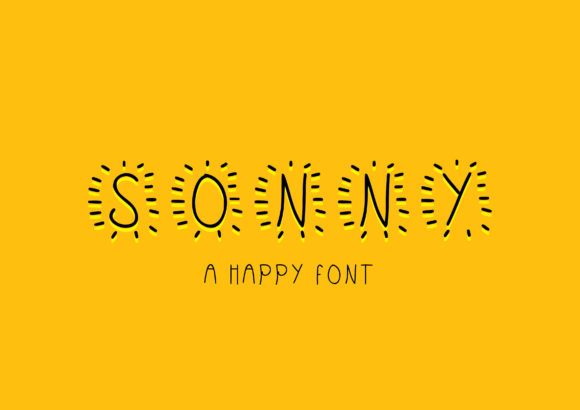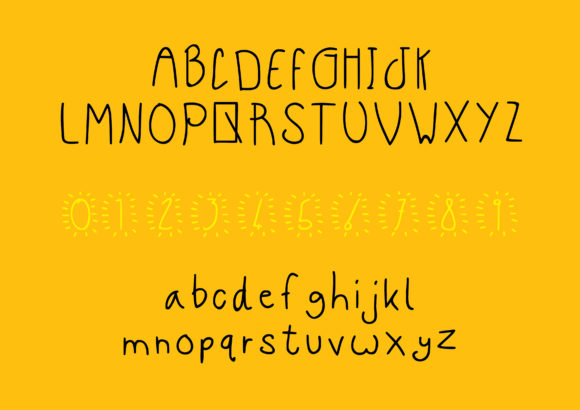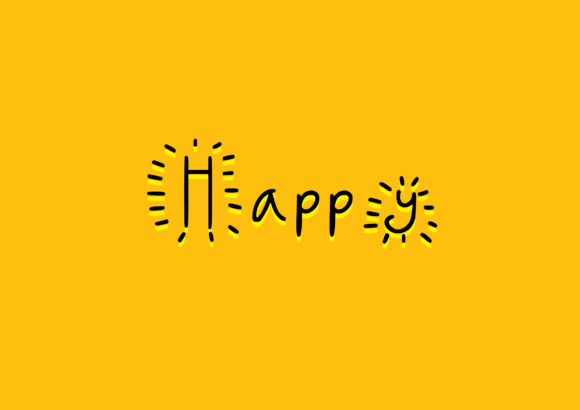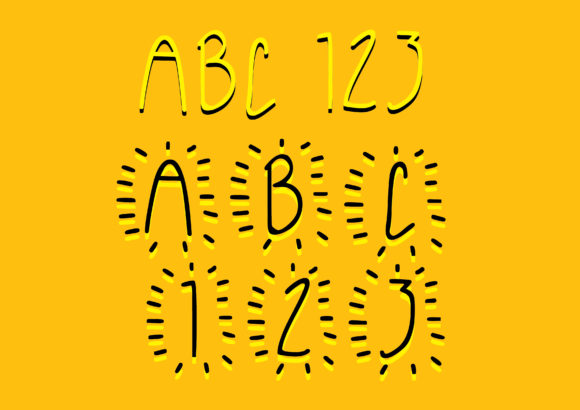
HomeScript FontsSonny Font Script Fonts Sonny Font FacebookXPinterestWhatsApp Sonny Font Poster 2 Sonny Font Poster 3 Sonny Font Poster 4 About Sonny Font Sonny is a happy and cheerful handwritten font coming in two weights. Get inspired by its playful feel! DOWNLOAD ON CREATIVE FABRICAThis font is sold and delivered by Creative Fabrica. Font Canyon may earn a commission if you buy through this link. People also explored Art School Dropout Contributor Font Minimalist Font Simple Gifted Font Houston Font Sirena Oxblood Black Bella Canvas 3001 Mockup Black and White Pantoja Font 397 0 TagsSonny Font Previous articleDonut FontNext articleRocketto Font LEAVE A REPLY Cancel reply Comment: Please enter your comment! Name:* Please enter your name here Email:* You have entered an incorrect email address! Please enter your email address here Website: Save my name, email, and website in this browser for the next time I comment. Personal Use Free Omellia Personal Use Free Read more about this font Makcex Personal Use Free Read more about this font Americana Personal Use Free Read more about this font Arnprior Personal Use Free Read more about this font BLOG Best Fonts for YouTube Videos: Make Your Thumbnails Stand Out Best Fonts for YouTube Videos: Make Your Thumbnails Stand Out Choosing the right font can make a massive difference in how your YouTube videos perform.... Transform Your Website: Elevate Your Typography with 7 Best Web Font Generators Modern Sans-Serif Fonts That Brands Love in 2025 To increase your work productivity, choose the most readable fonts.